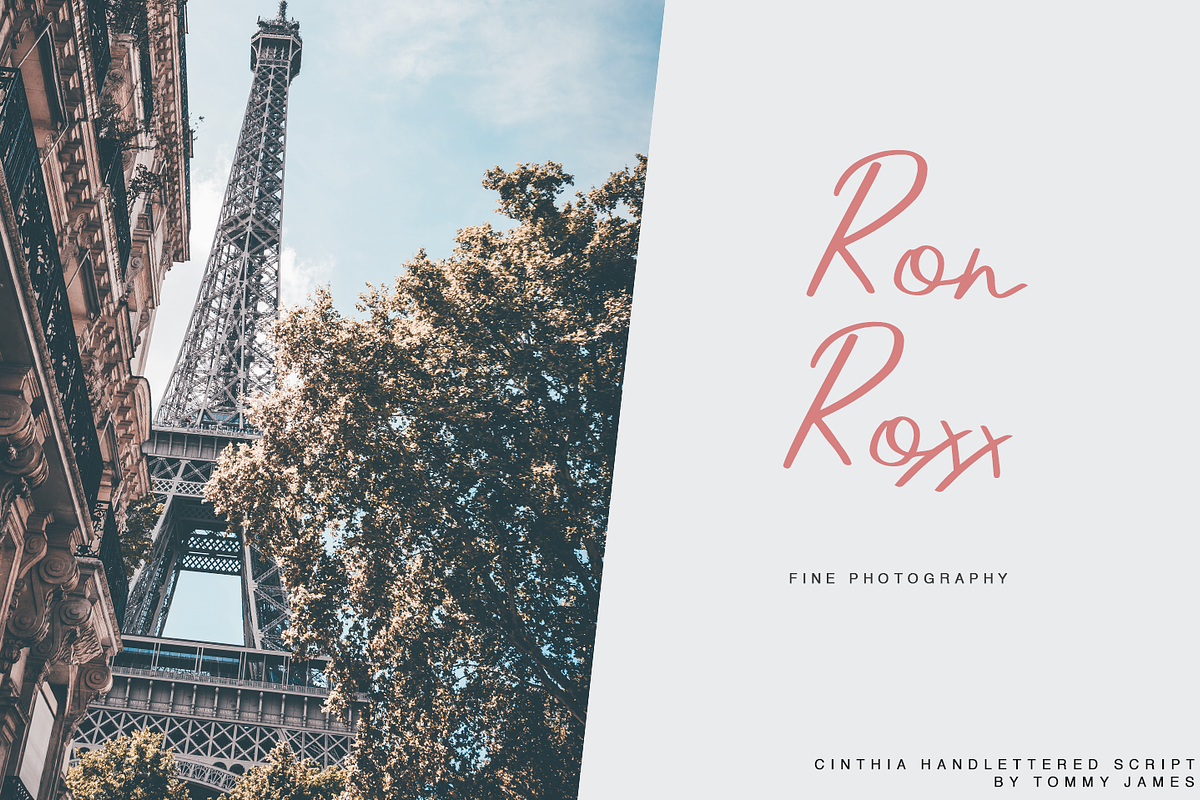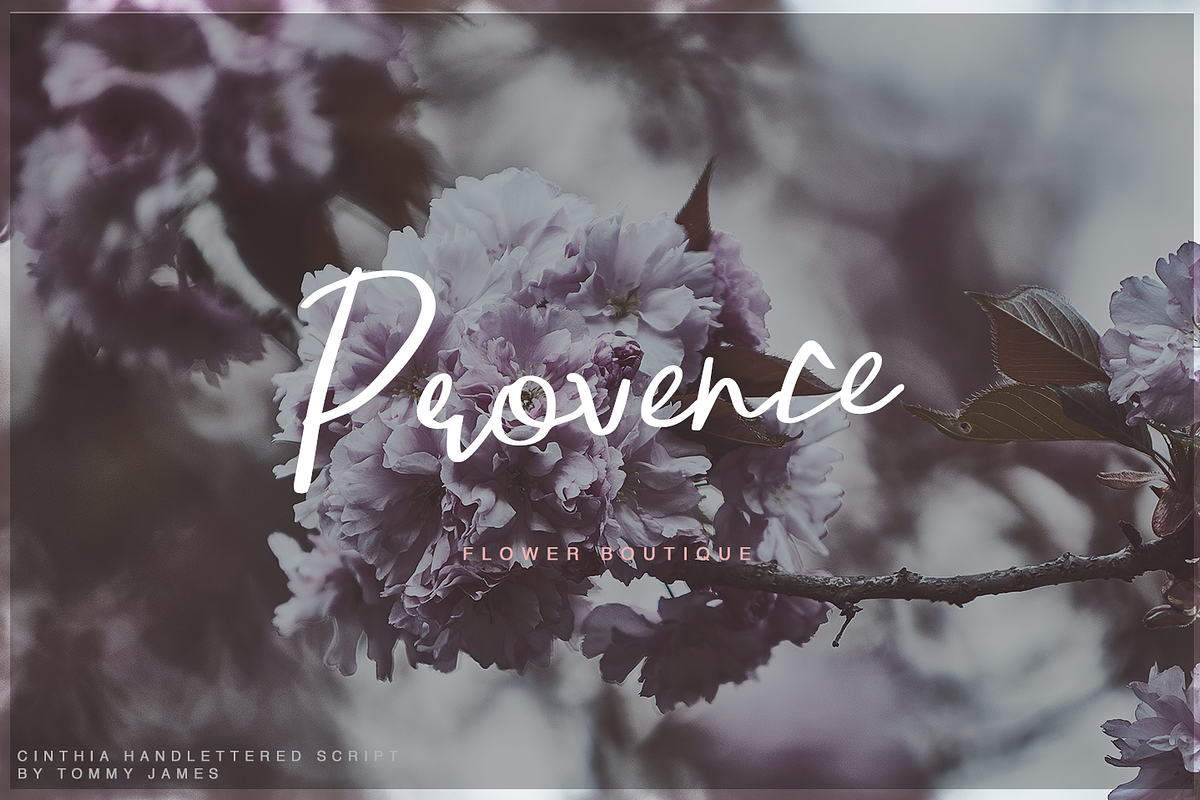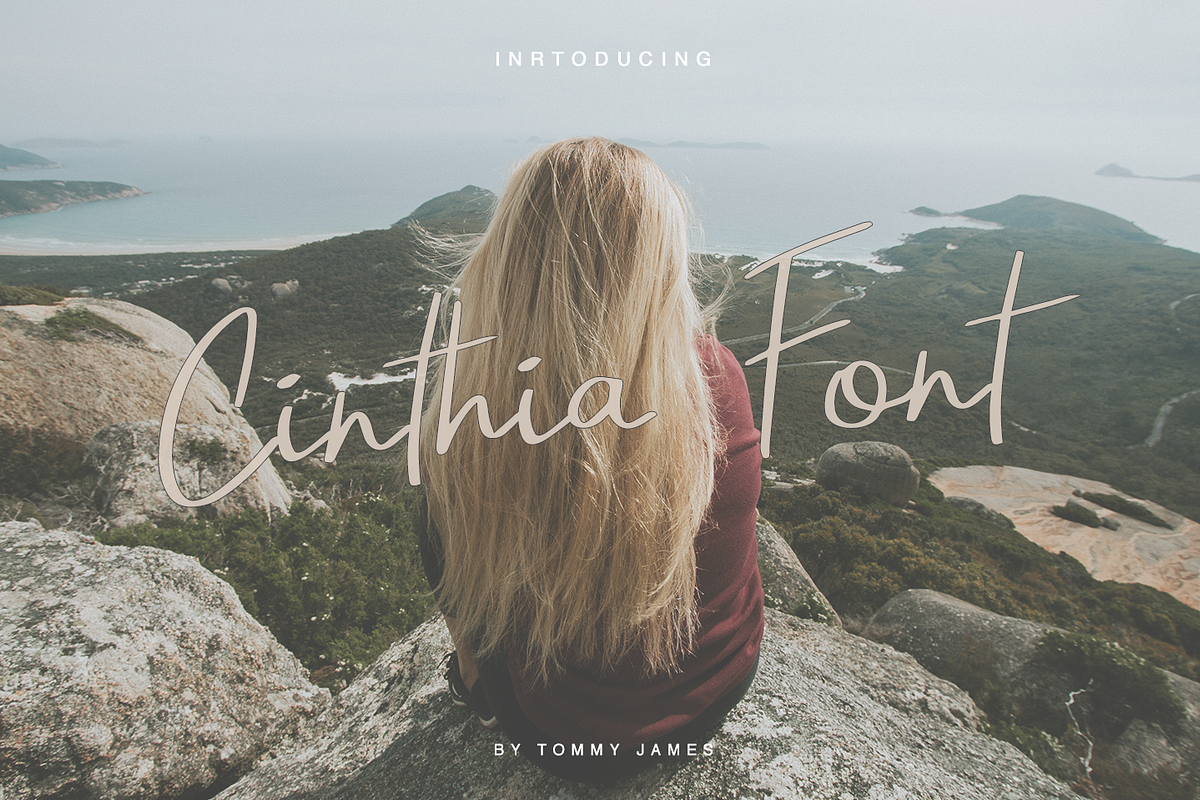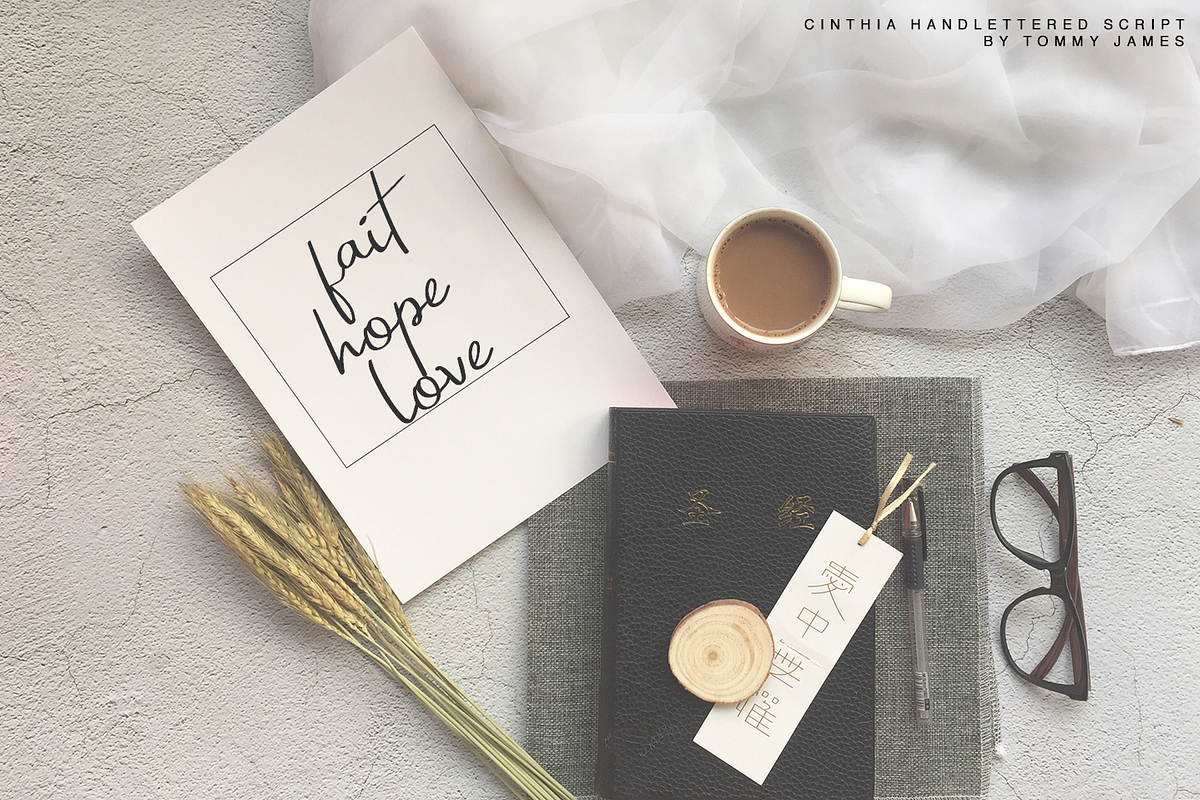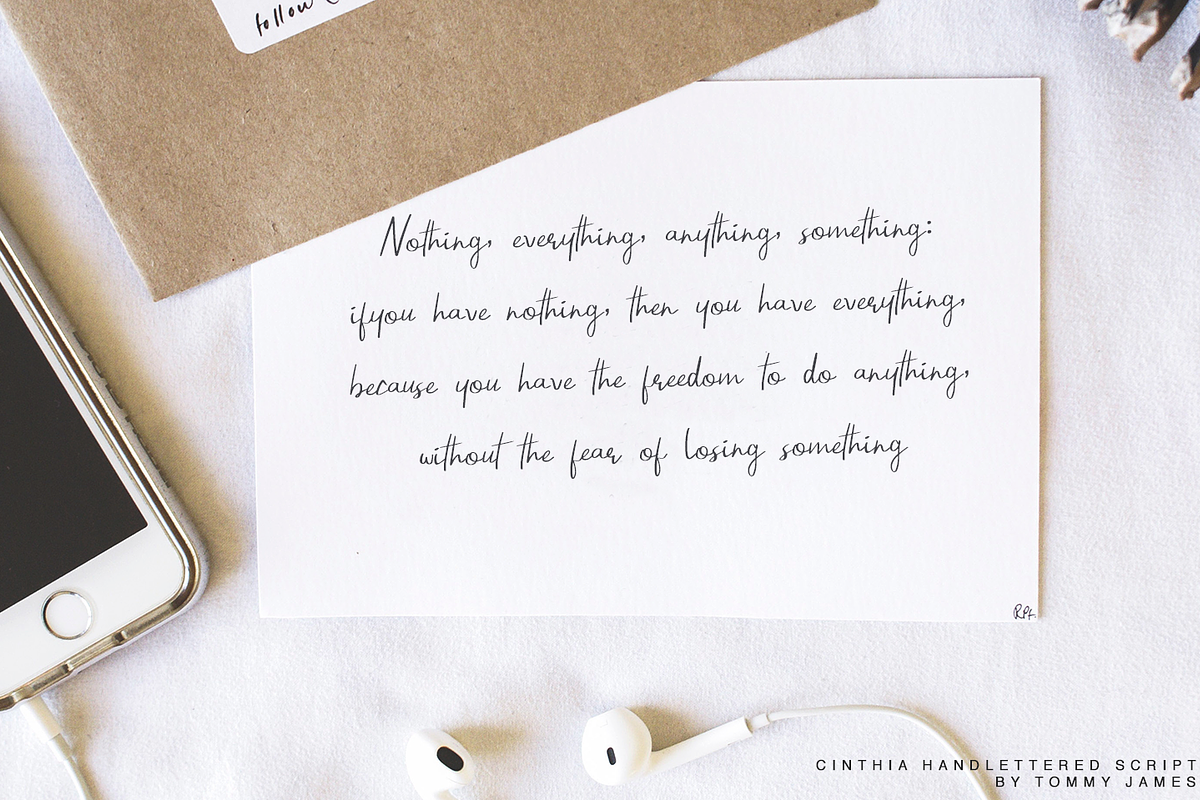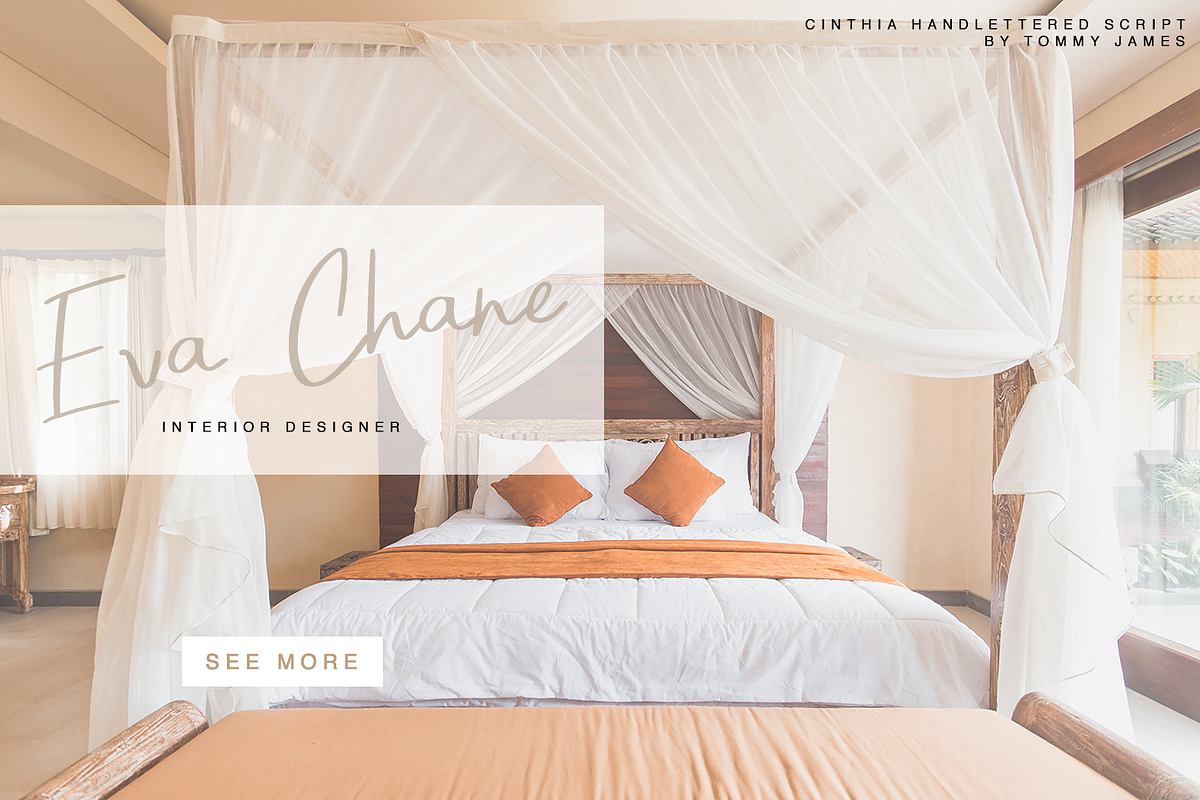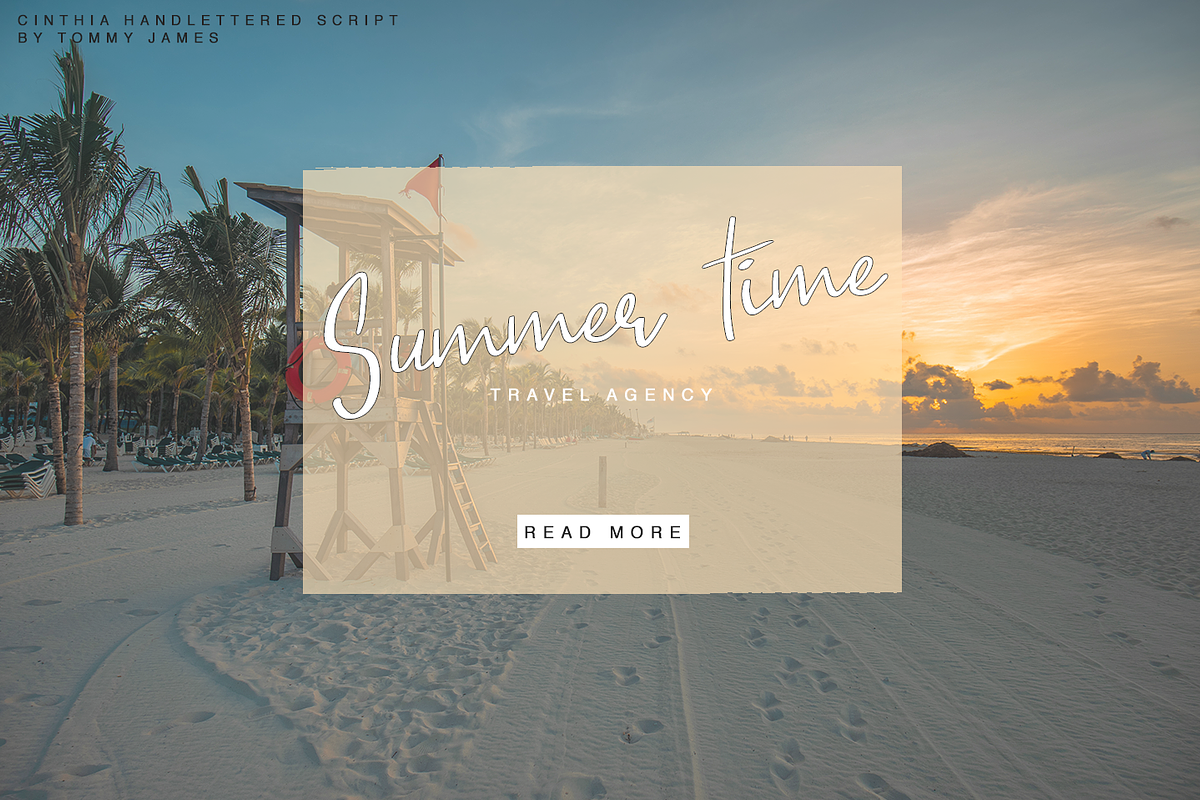
Cinthia Font
Cinthia Font - a new fresh handmade calligraphy font.
Very suitable for greeting cards, branding materials, business cards, quotes, posters, and more!This font are perfect for wedding postcard. Or you can create perfect and unique design of your logo, blog, stationery, marketing, magazines and more :)
Cinthia Font by Quothron fits naturally into Branding, posters, packaging, typography.